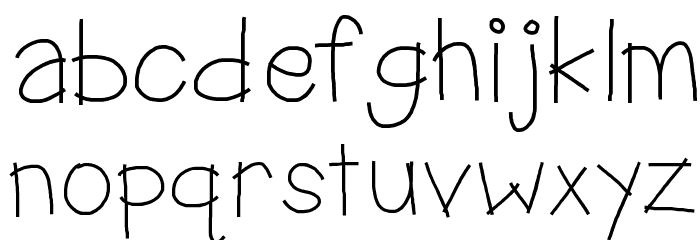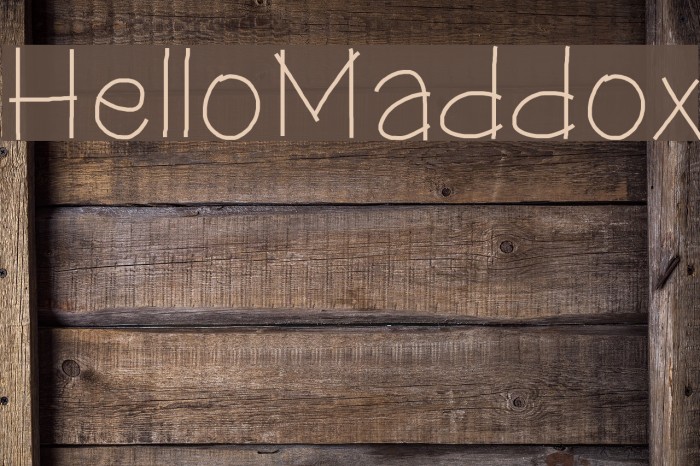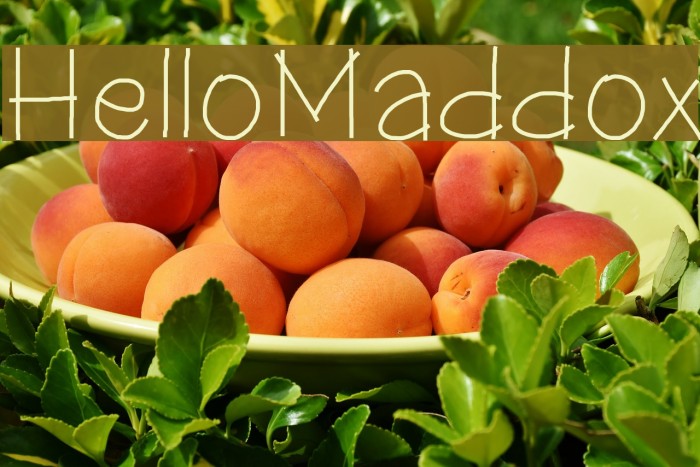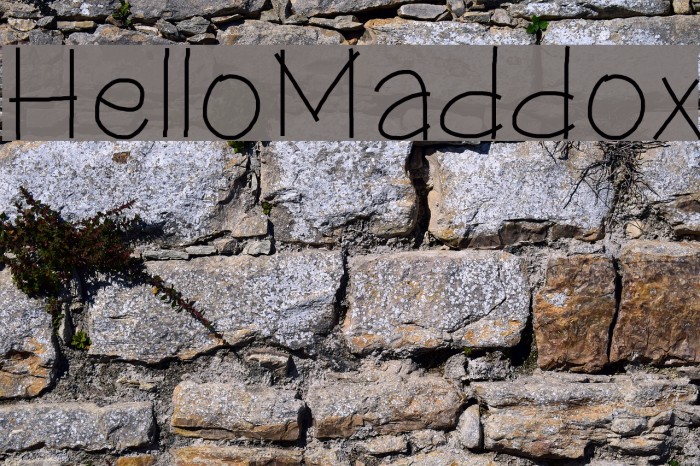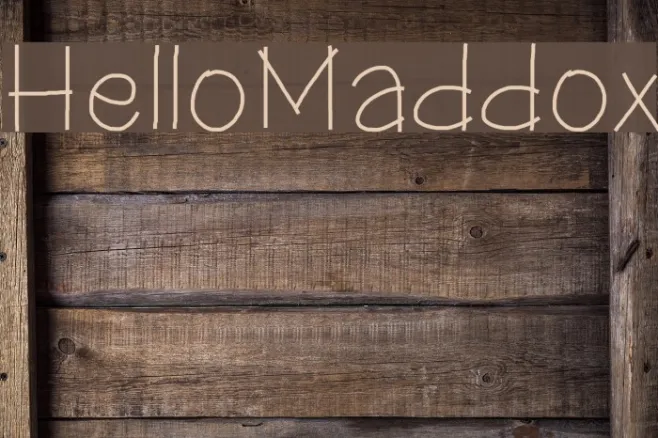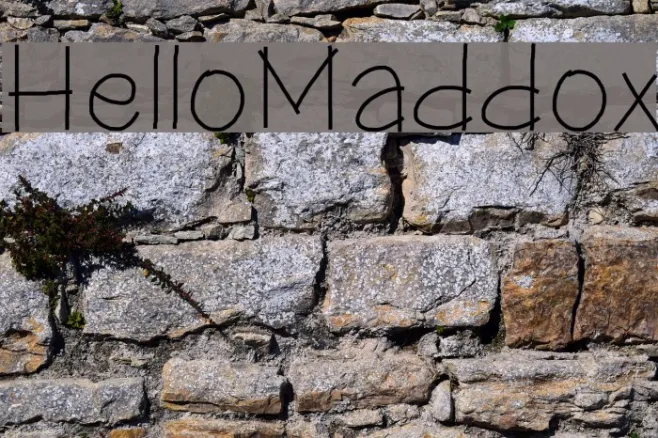
HelloMaddox Font
This font features a playful and whimsical design with a handwritten style. The characters are slightly irregular, giving it a casual and friendly appearance. The strokes are thin and consistent, with a slight variation that adds to the hand-drawn feel. The uppercase letters are tall and narrow, while the lowercase letters are more rounded and open. The numbers and special characters maintain the same playful aesthetic, making the font versatile for various creative projects.
A playful, handwritten font with a whimsical and casual style.
- Proposed Projects: Ideal for children's books, greeting cards, playful branding, and creative posters.
- Overall Style: Whimsical
- Use Case: Headlines, Logos, Creative projects